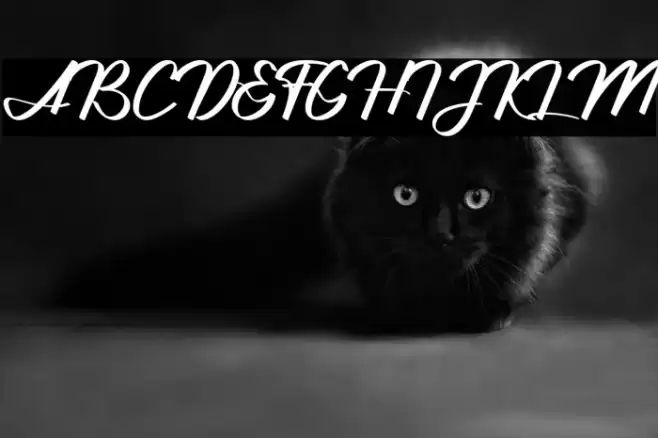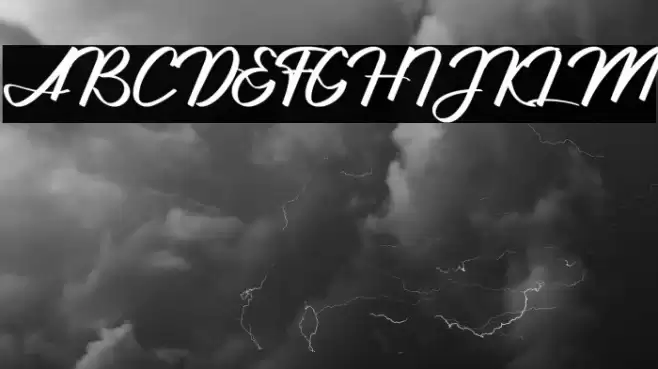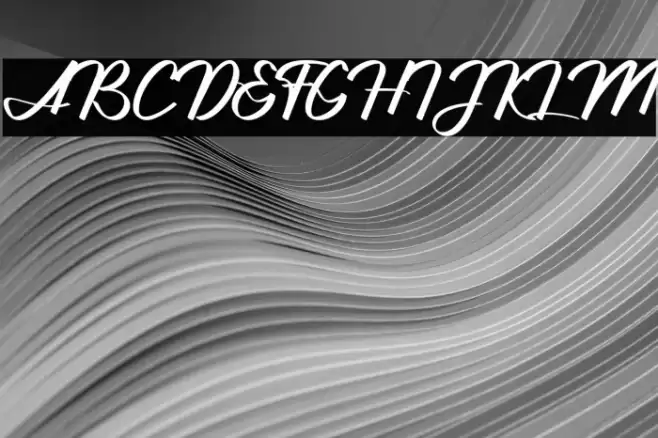
Jhanttan Personal Use Only Font
Jhanttan Personal Use Only Description
This font features a bold and expressive script style, characterized by its flowing, cursive letterforms that convey a sense of elegance and dynamism. The uppercase letters are particularly ornate, with sweeping curves and loops that create a sense of movement. The lowercase letters maintain a consistent style, with thick strokes and a slightly condensed appearance, enhancing readability while preserving the decorative nature. The font's overall design is both modern and stylish, making it suitable for a variety of creative applications. Its bold weight and high contrast between thick and thin strokes add to its striking visual impact.
A bold, expressive script font with flowing, cursive letterforms from Uncategorized fonts.
- Font: Jhanttan Personal Use Only
- Proposed Projects: Ideal for branding, invitations, greeting cards, and other creative projects that require a touch of elegance and style.
- Character Spacing: Tight
- Use Case: Logos, Invitations, Branding